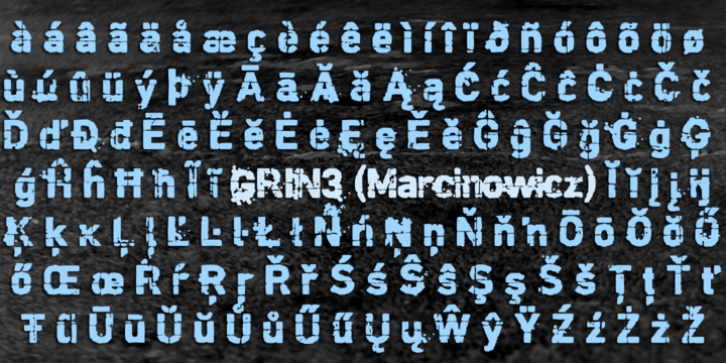
Nageka was designed by Piotr Marcinowicz and published by GRIN3 (Marcinowicz). Nageka contains 2 styles and family package options.
Nageka is a distorted typeface, ideal for posters, slogans, headlines, particularly for hardcore bands' posters. The additional set of dirt patterns is comfortable to use with subtitles.
Language support includes Western, Central and Eastern European character sets, as well as Baltic and Turkish languages.